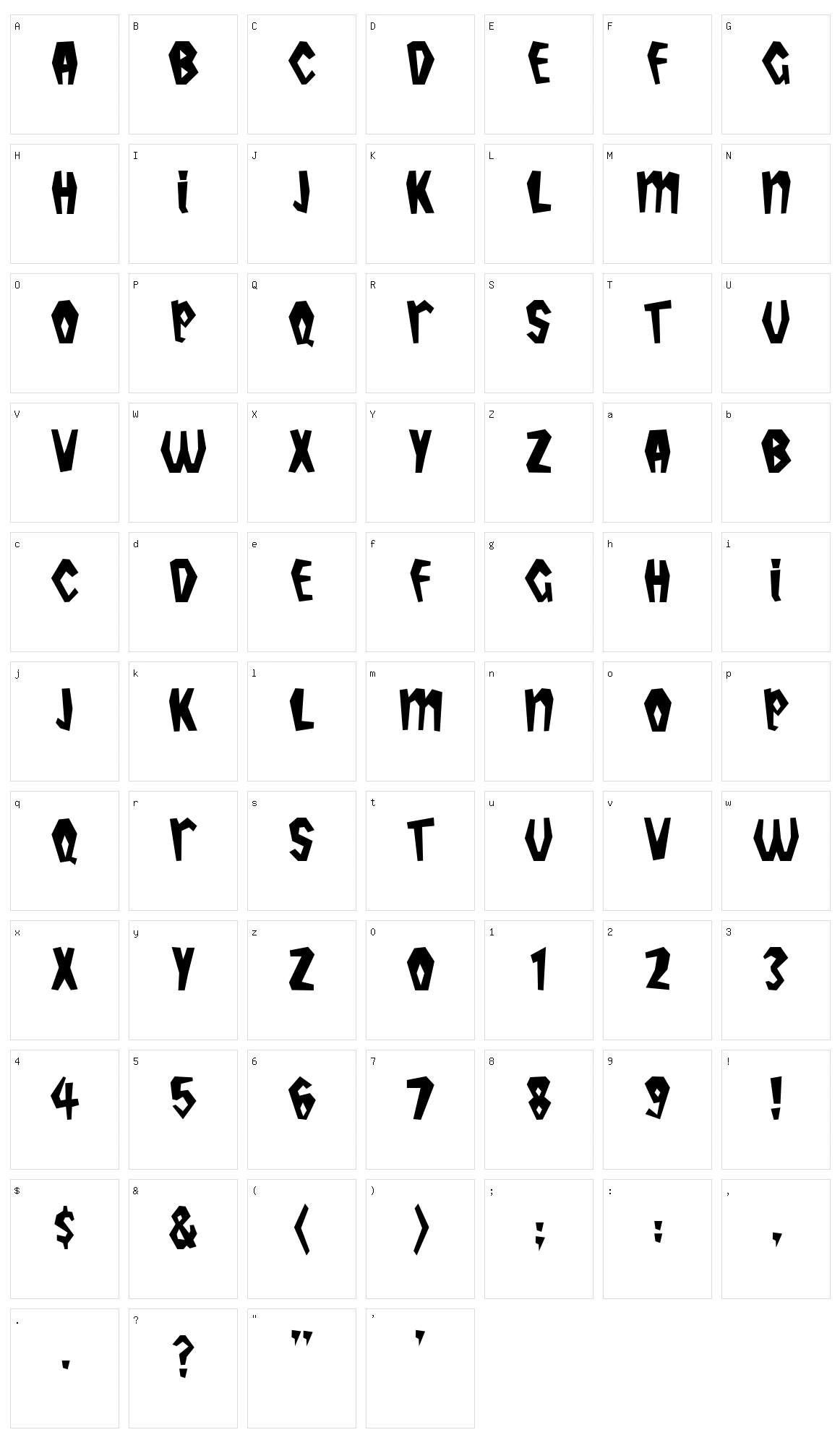
Whoa Lucy! Don't forget my bongoes and take me to the Copacabana (get a drink with one of those little umbrellas on it). This is the TrueType version of Tropicana.